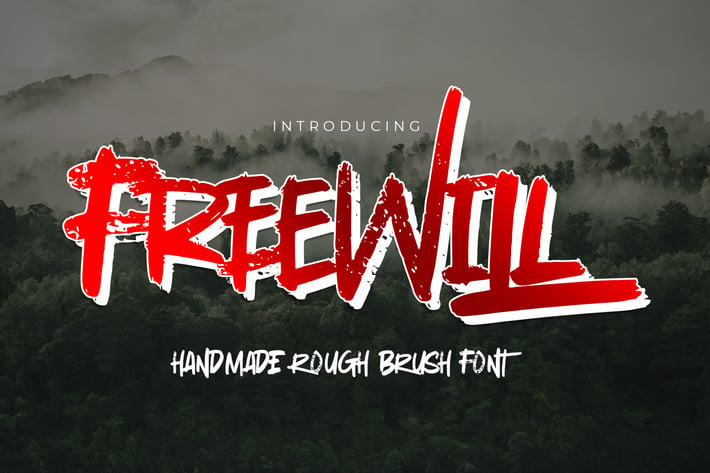
Freewill - Handmade Rough Brush Font
Introducing of our new product Freewill - Handmade Rough Brush Font with ligature and Multilanguage support.inspired by the famous minimalist logo, perfect for the purposes of designing templates, brochures, videos, advertising branding, logos and more.
Perfect for adding a unique to word-mark logos, as well as numbers and punctuation making it super fantastic.
Like all of my fonts it is inspired by lettering from the good old past, but it still has a strong modern appearance. Its wide range of stylistic alternates allows versatile design options and works perfectly for headlines, logos, posters, packaging,,coffee shops, restaurants, magazine's headers, signs or gift/post cards,cafe's and weddings.Best for poster, horror poster, childrenbook, cartoon, comic etc.
+ Ligature glyphs
+ Multilingual